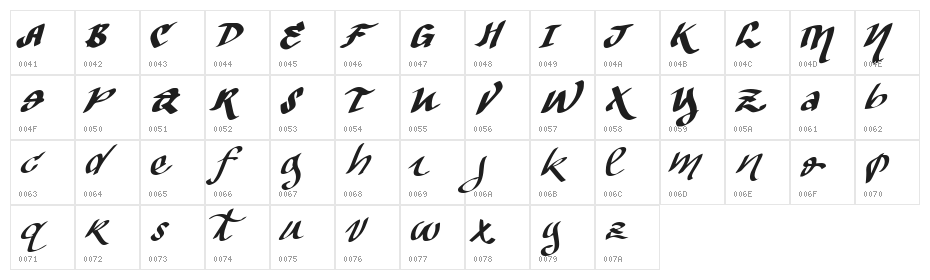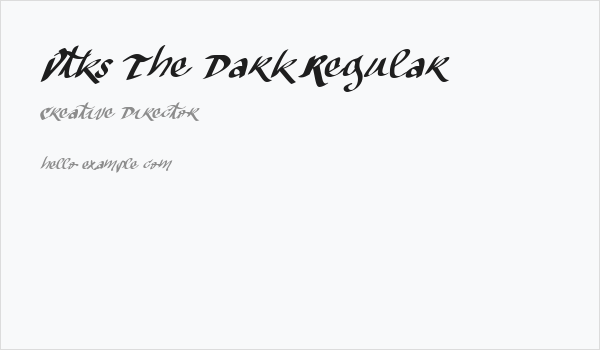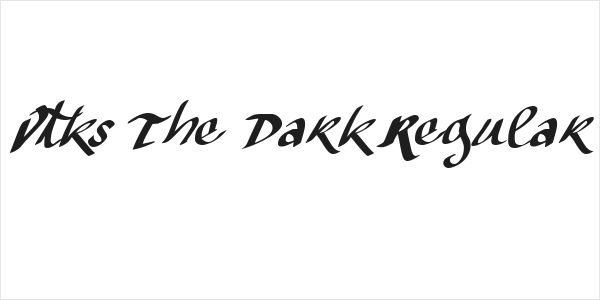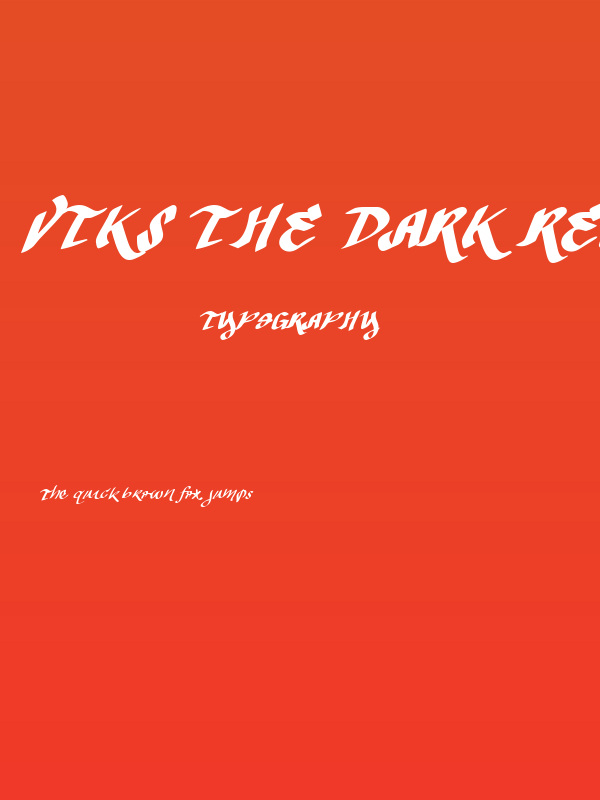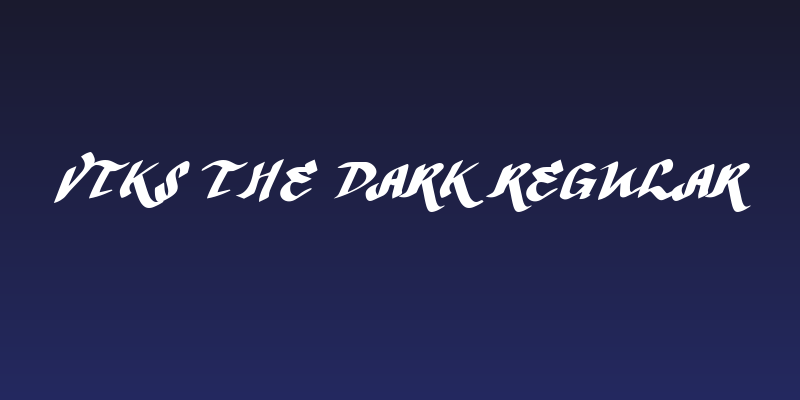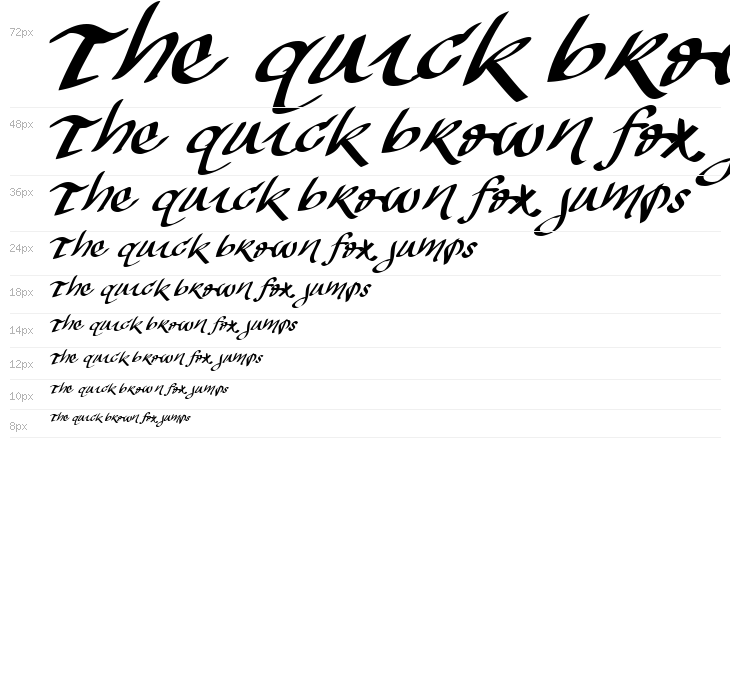
Vtks The Dark Regular Font
Vtks The Dark Regular Description
This font features a bold and dramatic script style with sharp, angular strokes that give it a dynamic and edgy appearance. The characters are highly stylized, with a calligraphic influence that adds a sense of movement and flair. The uppercase letters are particularly striking, with exaggerated curves and pointed terminals, while the lowercase letters maintain a consistent flow and rhythm. The overall design is both artistic and expressive, making it suitable for projects that require a strong visual impact. The font's unique style is ideal for creative and unconventional applications.
| Proposed Projects | Ideal for branding, posters, album covers, and any project requiring a bold, artistic touch. |